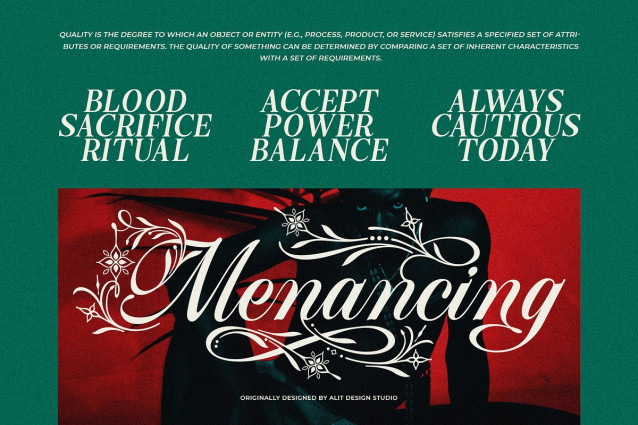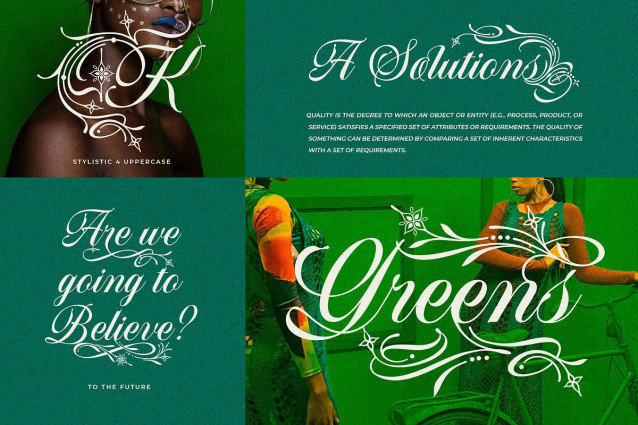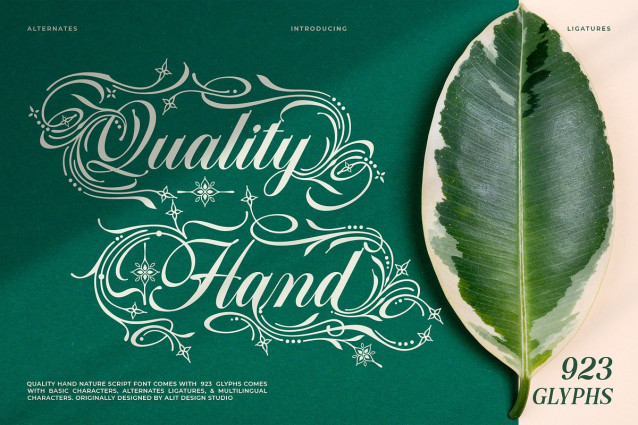
Quality Hand Font
Quality Hand Font, a breathtakingly elegant script font that blends the grace of handwritten calligraphy with the untamed beauty of nature. Designed by Alit Design Studio, this font is not just a collection of letters but an artistic toolkit for creating designs that whisper tales of mystical forests and dream-like fantasy realms.
Quality Hand flows with a natural, brushy texture, giving every word an authentic, handcrafted feel. Its true magic lies in its abundant decorative elements, where delicate leaves, vines, and floral motifs gracefully intertwine with the letterforms. Whether you’re crafting a logo for a luxury brand or an invitation to a magical event, Quality Hand provides the elegance and wonder you need to captivate your audience.
With an astounding 923 glyphs, the possibilities are limitless. Dive into multiple stylistic sets to transform your text from a clean, classic script into a lush tapestry of natural ornamentation. This versatility ensures that every design is unique and perfectly tailored to your vision.